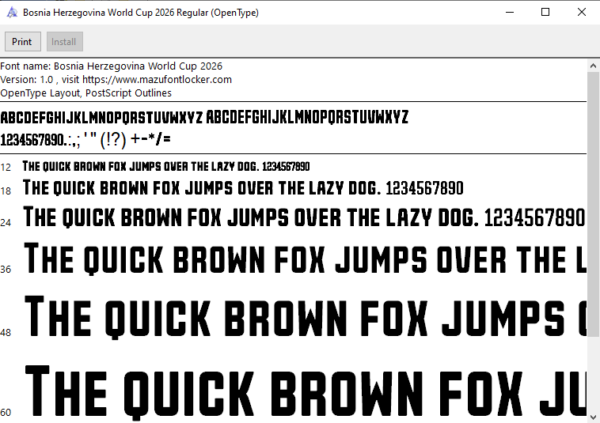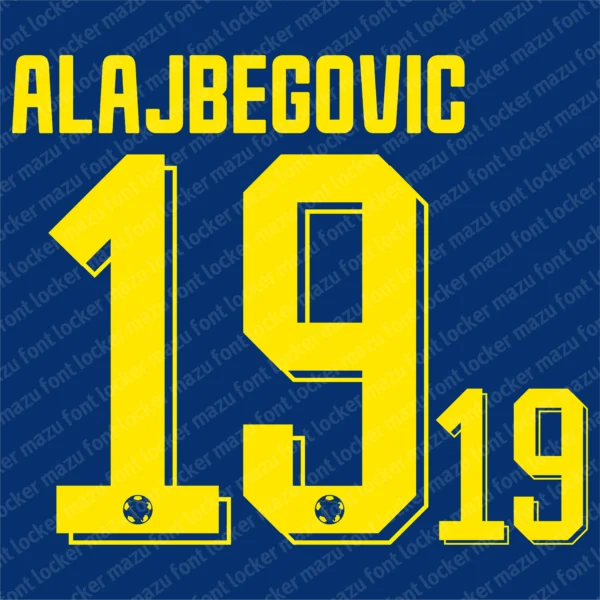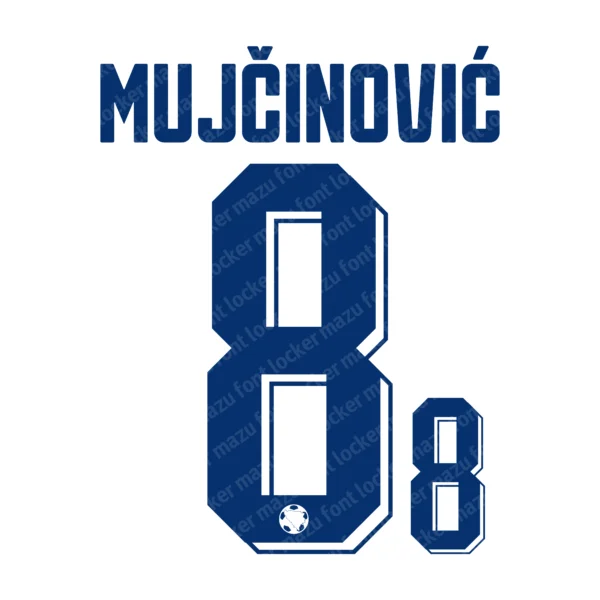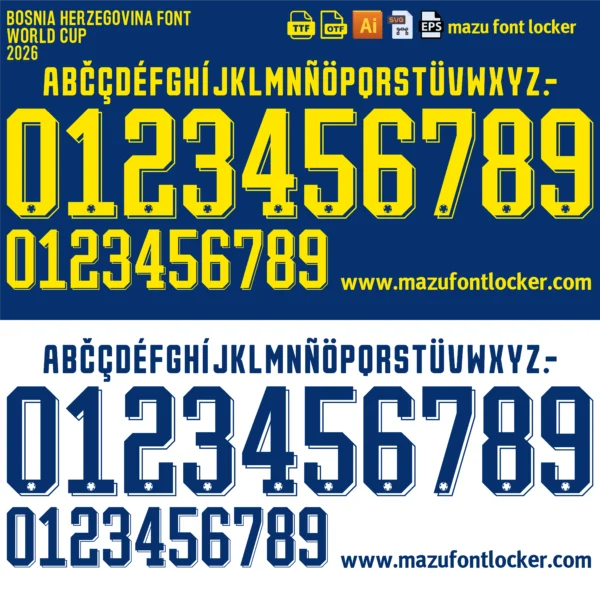
Bosnia Herzegovina World Cup 2026 Font – Authentic Zmajevi Typeface
The Bosnia Herzegovina World Cup 2026 Font is a premium typeface that accurately recreates the official match lettering worn by the Bosnia and Herzegovina national team during the 2026 FIFA World Cup. This high-quality font kit captures the bold, modern, and powerful typography that represents the Zmajevi’s latest kit design.
Designed for professional designers and passionate Bosnia fans, the Bosnia Herzegovina World Cup 2026 Font delivers perfect authenticity for creating jersey mockups, fan merchandise, matchday posters, social media graphics, and much more. It blends beautifully with the team’s iconic blue, white, and yellow colors.
Why Choose Bosnia Herzegovina World Cup 2026 Font
This font stands out because of its sharp details and strong national identity. Every letter and number is crafted to match the exact style used on the players’ shirts for the 2026 World Cup campaign. Whether you are making realistic shirt templates or eye-catching football content, the Bosnia Herzegovina World Cup 2026 Font gives your designs that authentic European football look.
The letterforms in the Bosnia Herzegovina World Cup 2026 Font are tall, bold, and highly readable. The strokes have a strong and controlled weight that looks powerful on the back of jerseys while maintaining excellent clarity and elegance.
The numerals use bold curves and firm edges, giving them a confident and premium appearance. This design ensures great legibility whether used in large print formats, digital mockups, or video content.
• Full uppercase A–Z and numbers 0–9 in authentic Bosnia Herzegovina 2026 style
• Special Bosnia crest glyph for accurate shirt number detailing